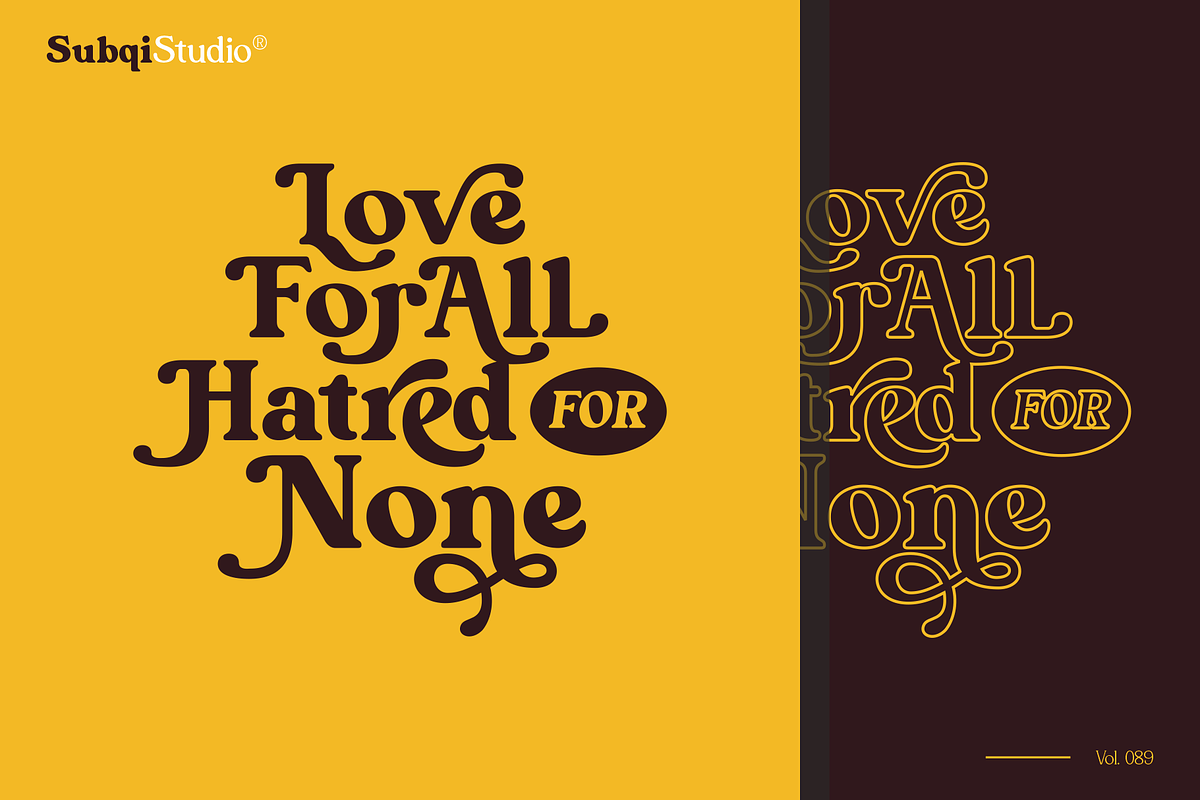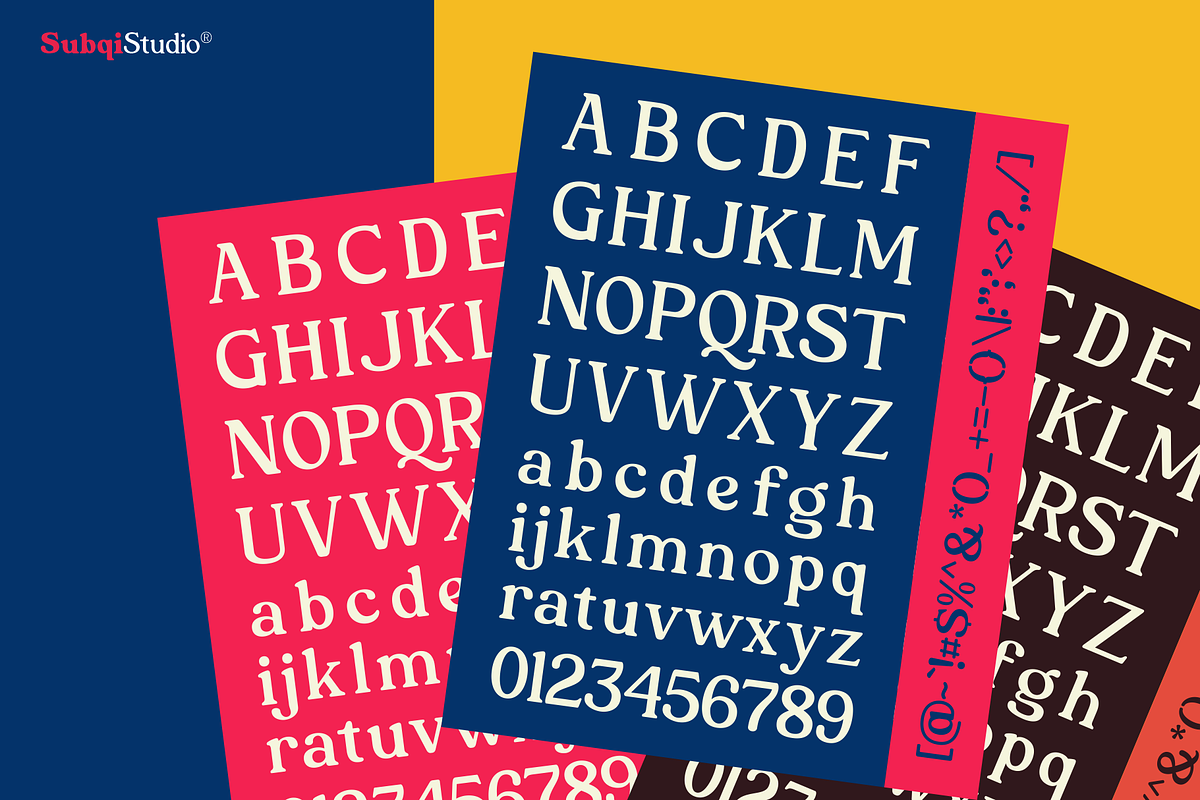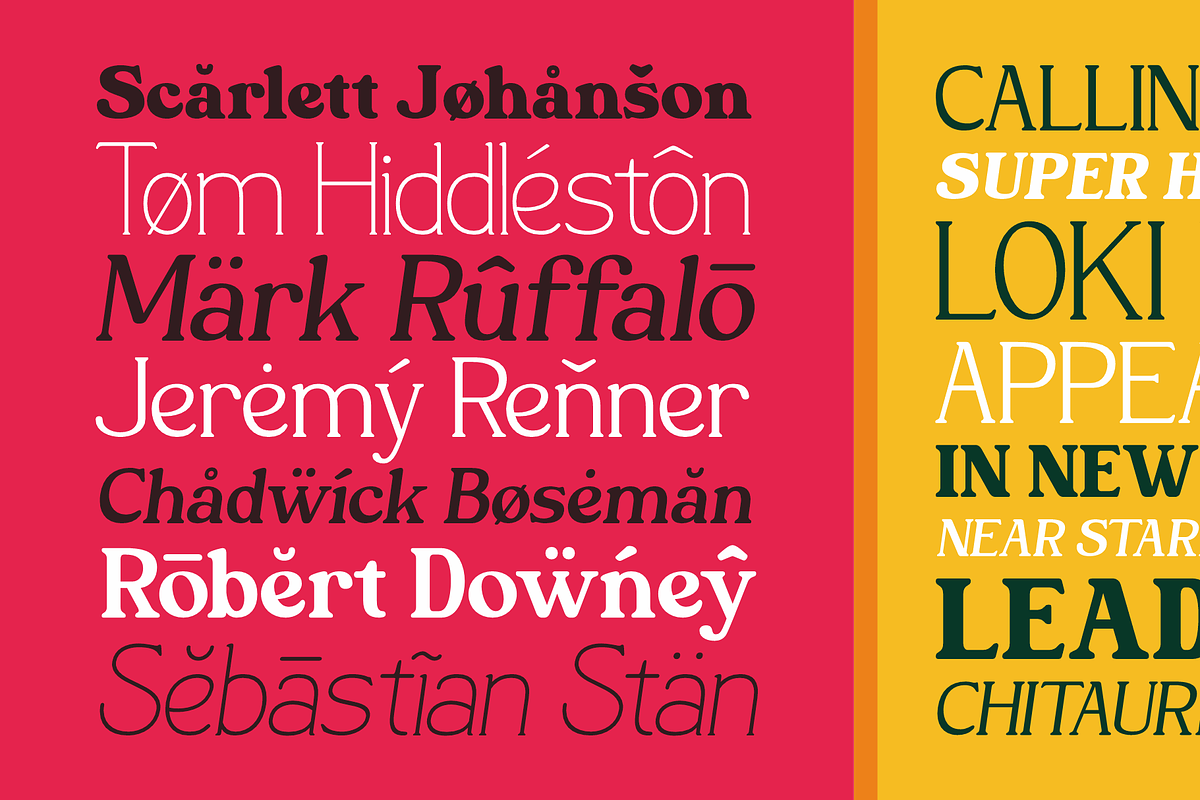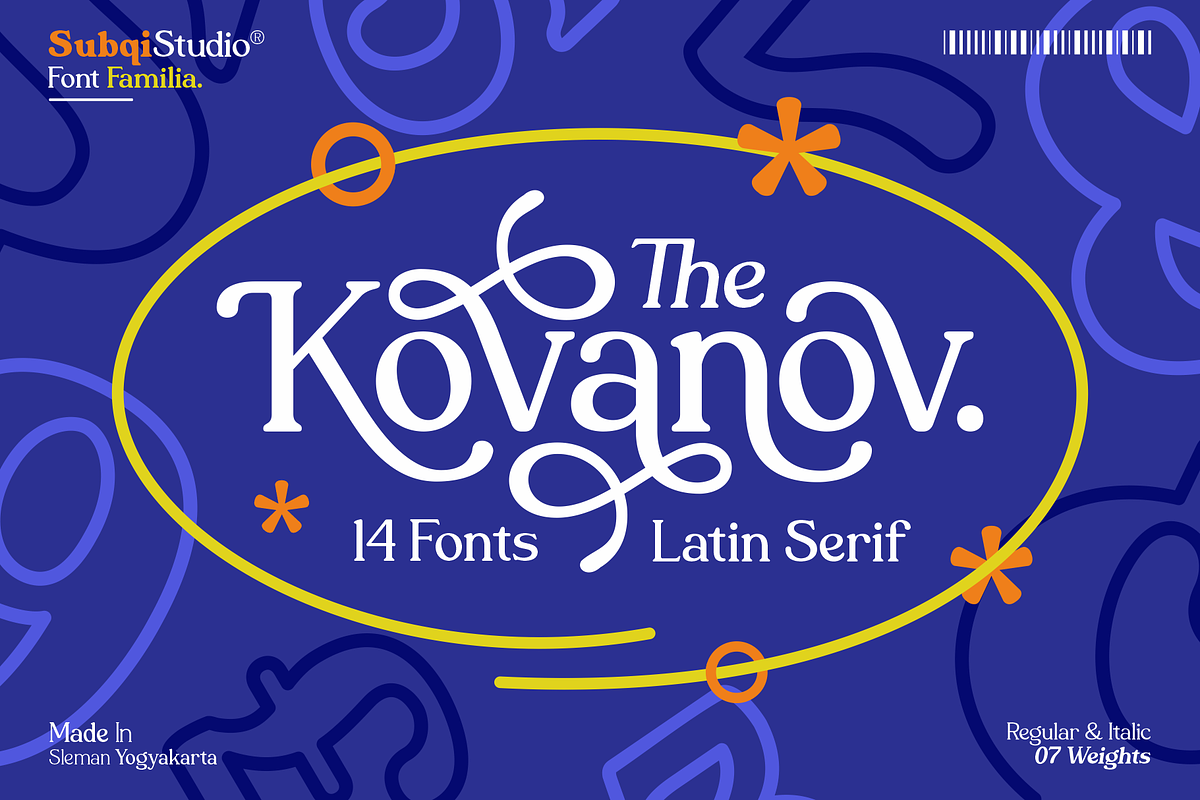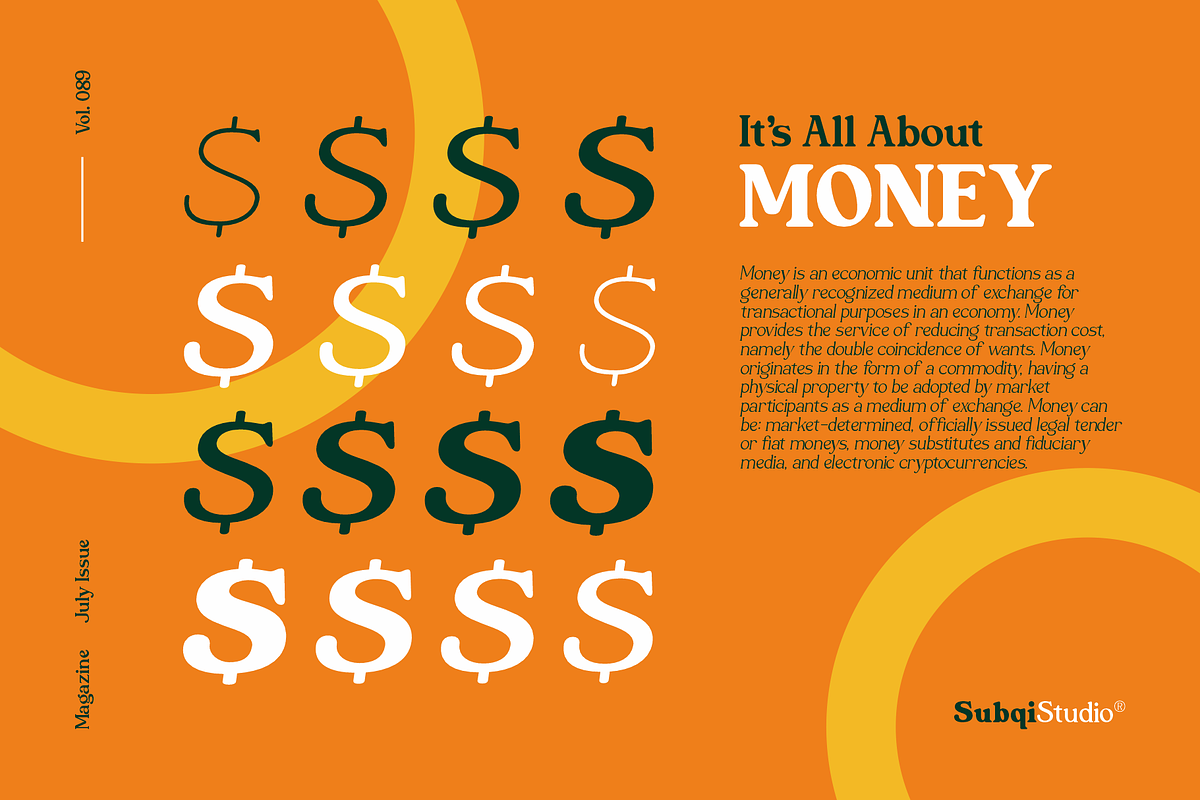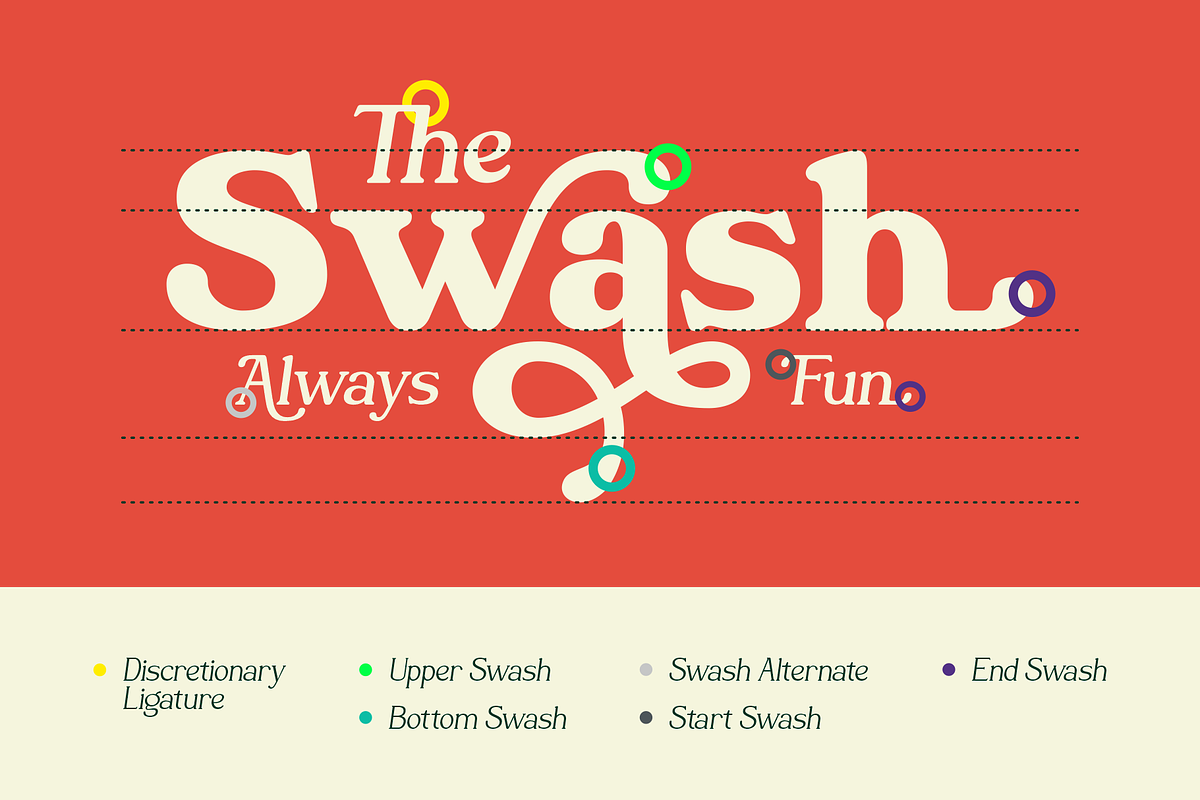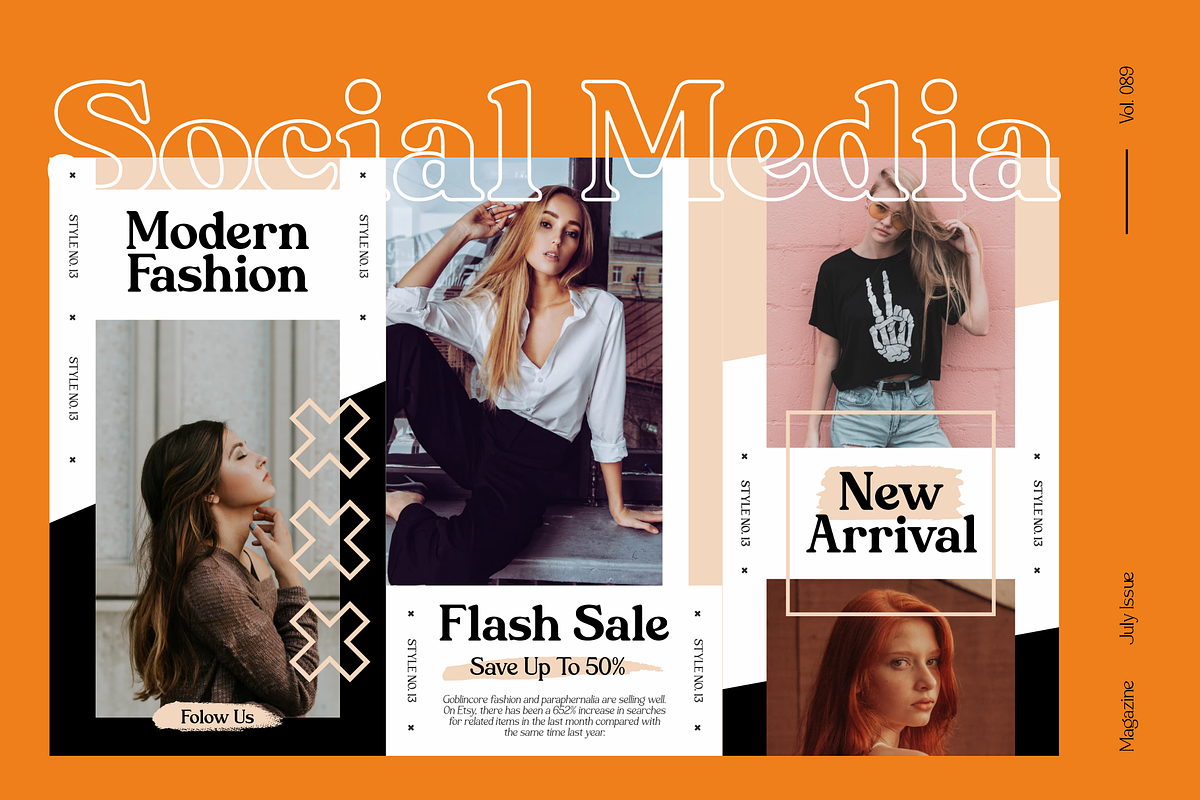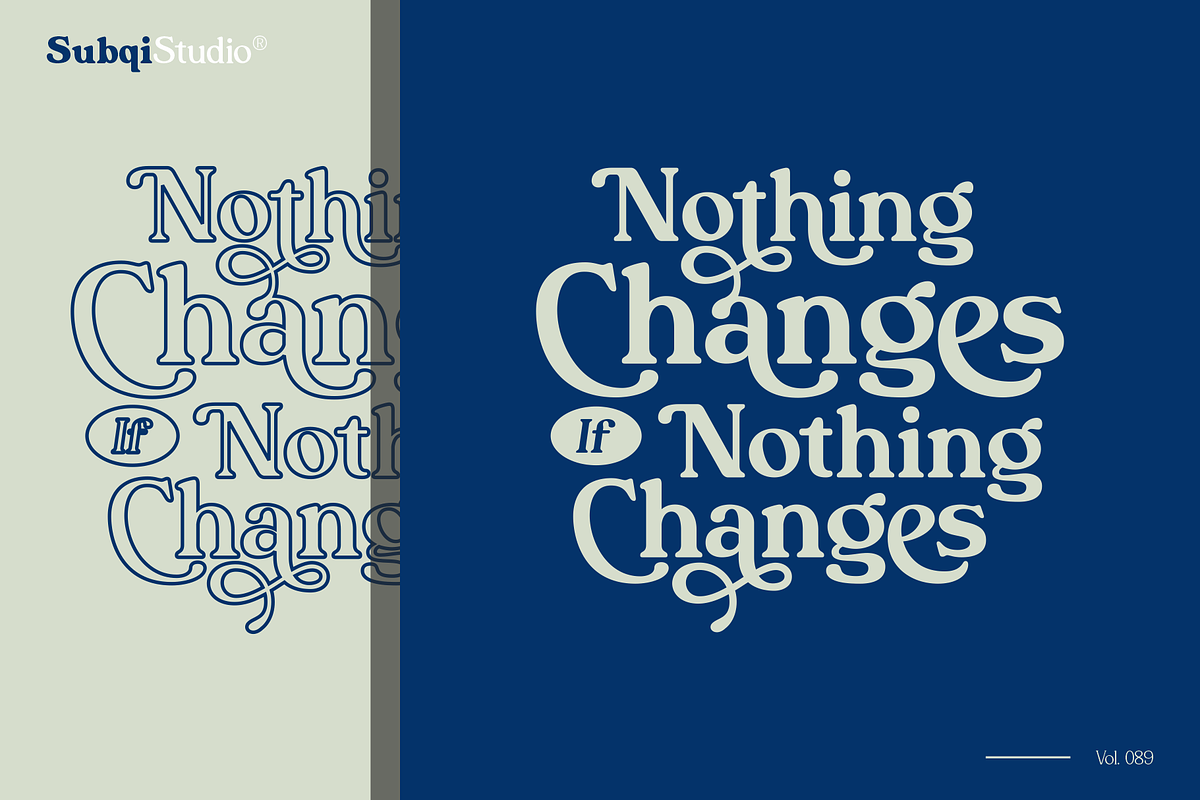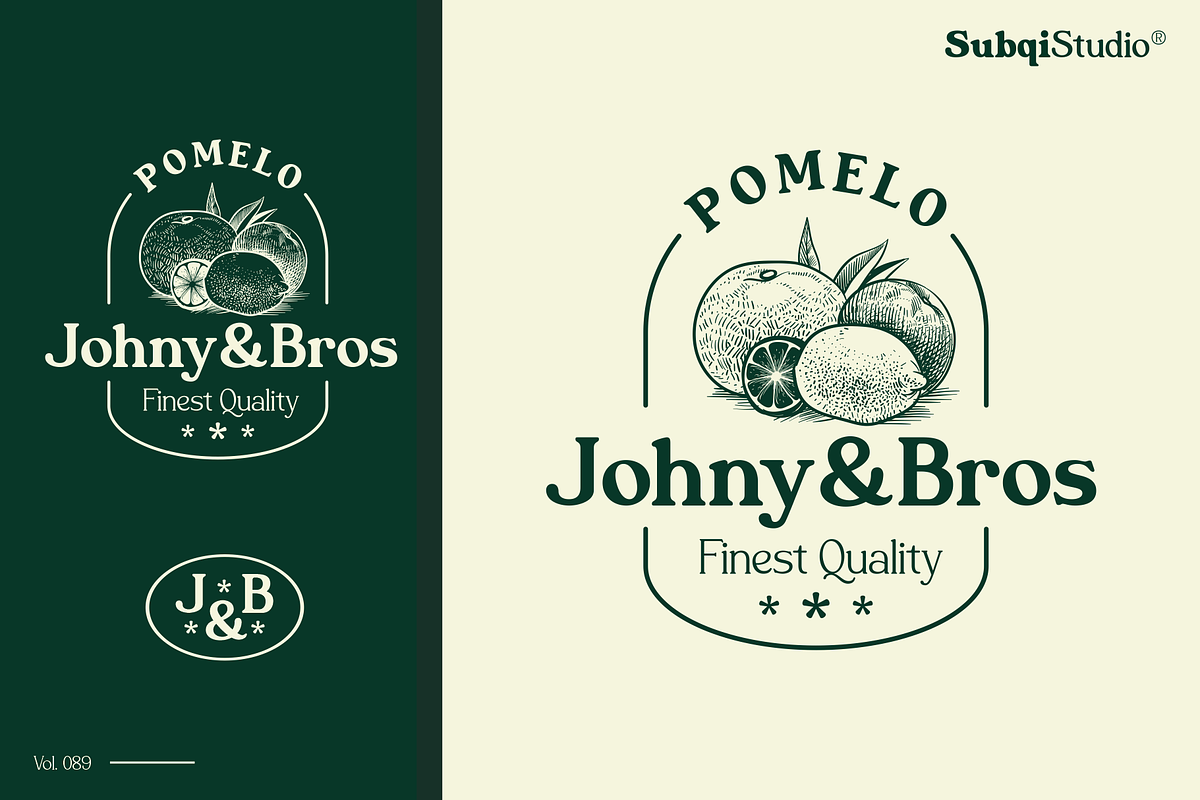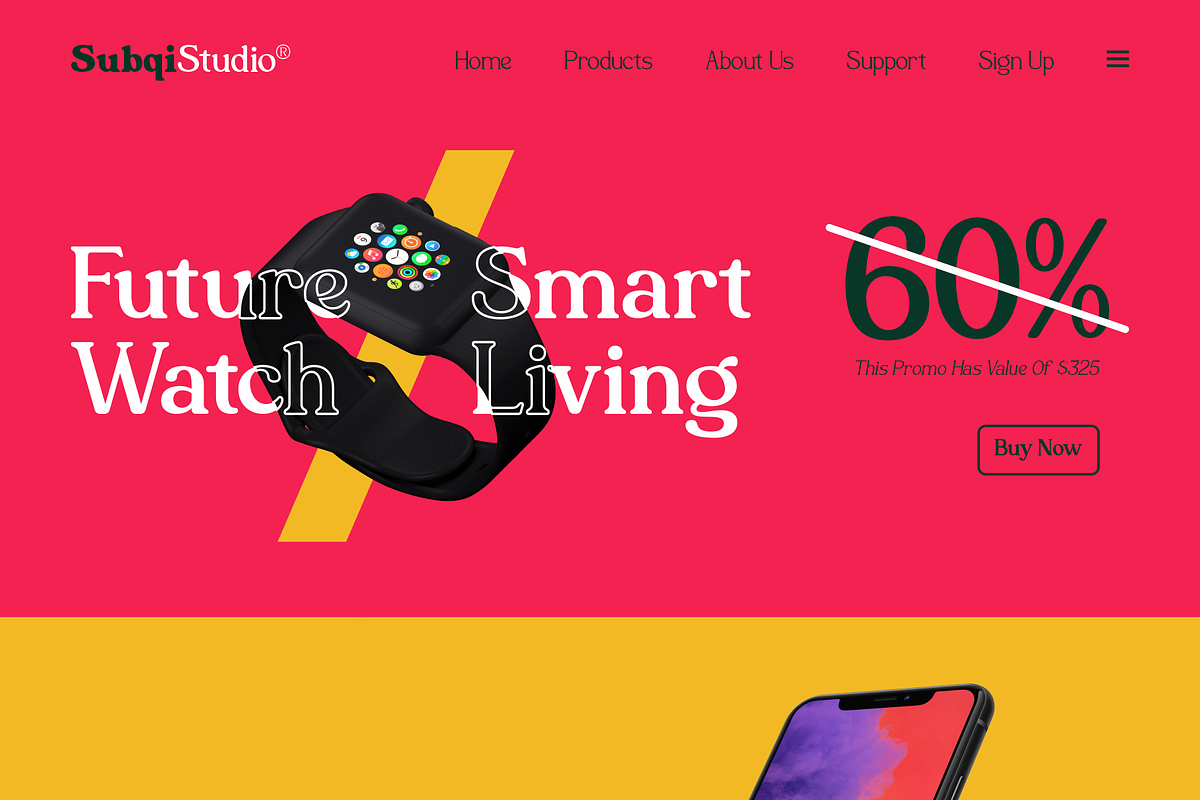
Kovanov - Latin Serif Family
Introducing Kovanov, a clean latin serif family with swash alternates for more fun purposes. Contains 420+ Glyphs this font also come up with 7 different weights. Our first display 'swashy' font with different weights to be honest. Because we knew in some cases sometimes need either thinner or thicker font or maybe both as companion as a whole. This font will suitable for your any projects such as branding, printing, social media, quotes and whatnot. We give you some glympse with our display preview there.